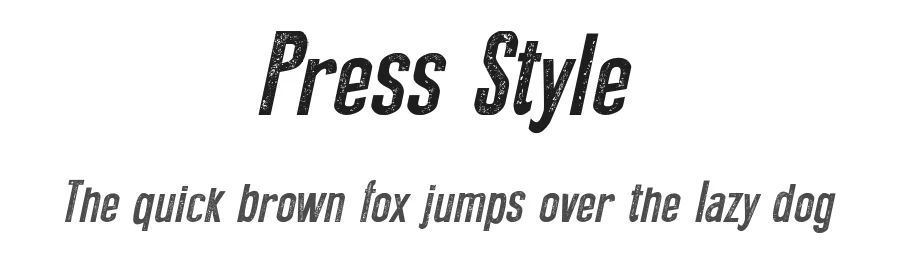
About Jesus Franco Font
JesΓΊs Franco.
MMXXII
Jesus Franco Font is a decorative font that shines as a display or heading face. Pair it with a clean sans-serif or serif font for body text β the contrast creates a clear hierarchy while the two styles stay balanced and easy to read.